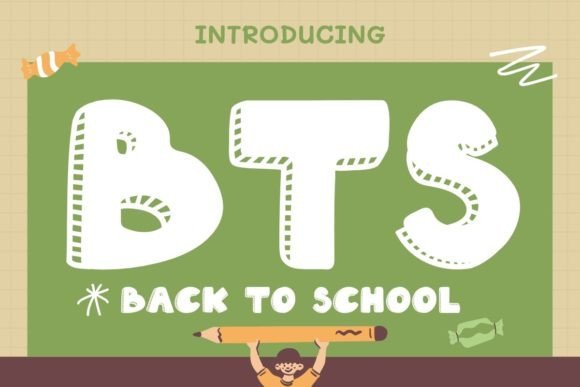
Unleash Your Creativity with BTS Font
Have you ever been stuck trying to come up with the perfect design for a greeting card or social media post, only to feel like you’re stuck in a creative rut? You’re not alone! We’ve all been there, searching for that one thing that will make our design stand out from the crowd.
That’s where BTS Font comes in – a cute and funny font that’s perfect for adding a touch of personality to your creations. Whether you’re a seasoned designer or just starting out, this versatile font is sure to elevate your work and make it stand out. And the best part? It’s suitable for a wide range of applications, from greeting cards to headlines and stickers.
BTS Font Key Features
- Unique Characteristics: The BTS font features a unique blend of modern and traditional elements, with bold lines, geometric shapes, and subtle nuances that evoke a sense of sophistication and elegance.
BTS Font Review
As a designer, I’ve had the chance to experiment with the BTS Font, and I must say it’s an interesting addition to the world of typography. ✨ One of the things that works well is the bold and playful vibe it brings to text. It’s perfect for creating attention-grabbing headlines or adding a pop of personality to your brand’s visual identity.
Another advantage of the BTS Font is its versatility. ✨ It can be used for both digital and print media, making it a great choice for designers who work on a wide range of projects. Additionally, the font’s clean and modern design ensures it won’t go out of style anytime soon.
However, as with any font, there are some limitations to consider. ⚠️ One of the main drawbacks is that the BTS Font may not be suitable for all types of text. It’s best used for short phrases or words, as longer texts can become difficult to read.
- Limited readability for long texts
- May not be suitable for body text
In conclusion, the BTS Font is a fun and creative option for designers looking to add some personality to their work. While it may have some limitations, its unique style and versatility make it a great choice for the right projects.
The BTS font is commonly used for:
- Music-related projects
- Fan art and fan fiction
- Personalized merchandise and gifts